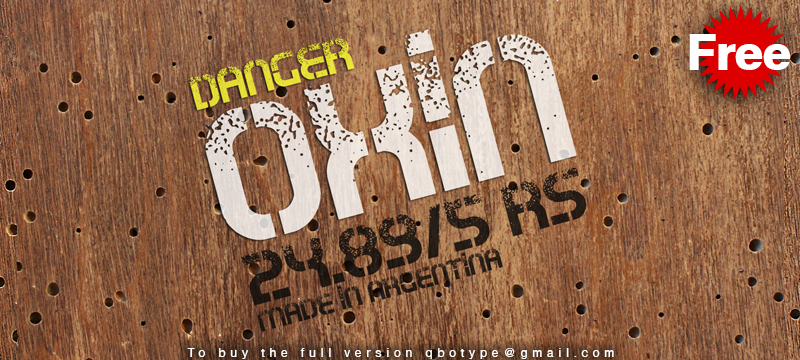
Oxin War is an eye-catching display font that exudes a rugged, eroded aesthetic. Designed by Carlos Matteoli, this font's distinctive character lies in its distressed, weathered appearance, which evokes a sense of gritty industrial charm. The sharp, angular letterforms and the irregular, chipped edges create a bold, attention-grabbing impression, making Oxin War an ideal choice for headlines, logos, and other design elements that demand a strong, impactful visual presence.
This font's versatility extends to a range of applications, from product packaging and editorial design to branding and advertising campaigns. Its unique style lends itself well to conveying a sense of resilience, power, and a touch of urban edge, making it a compelling option for projects that seek to capture a rugged, edgy aesthetic.